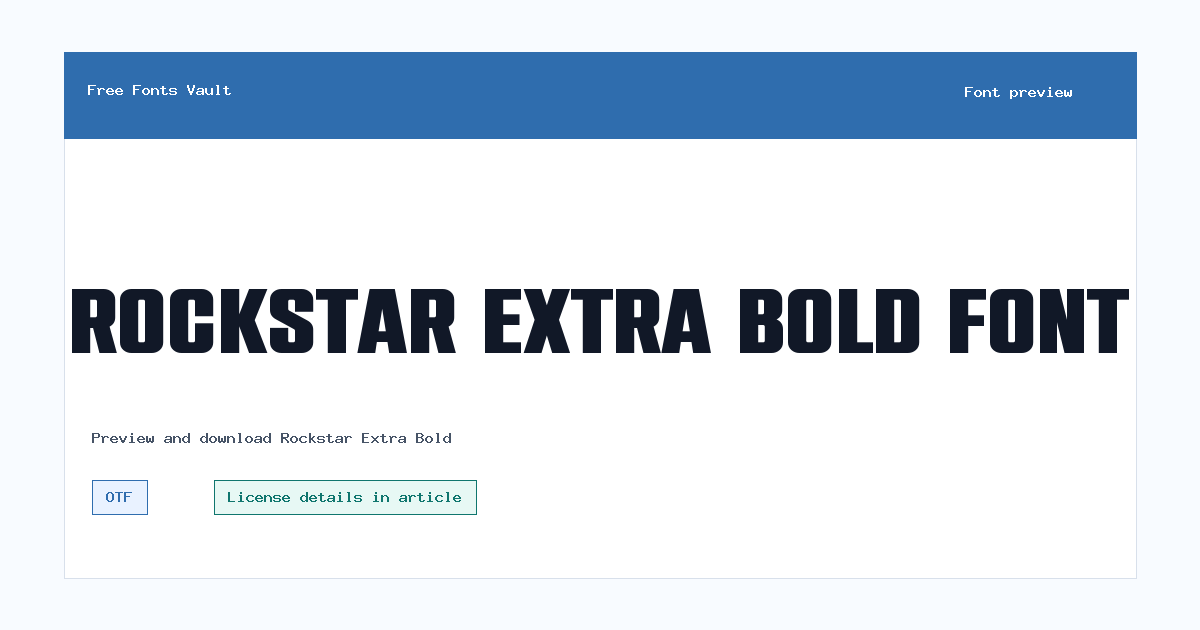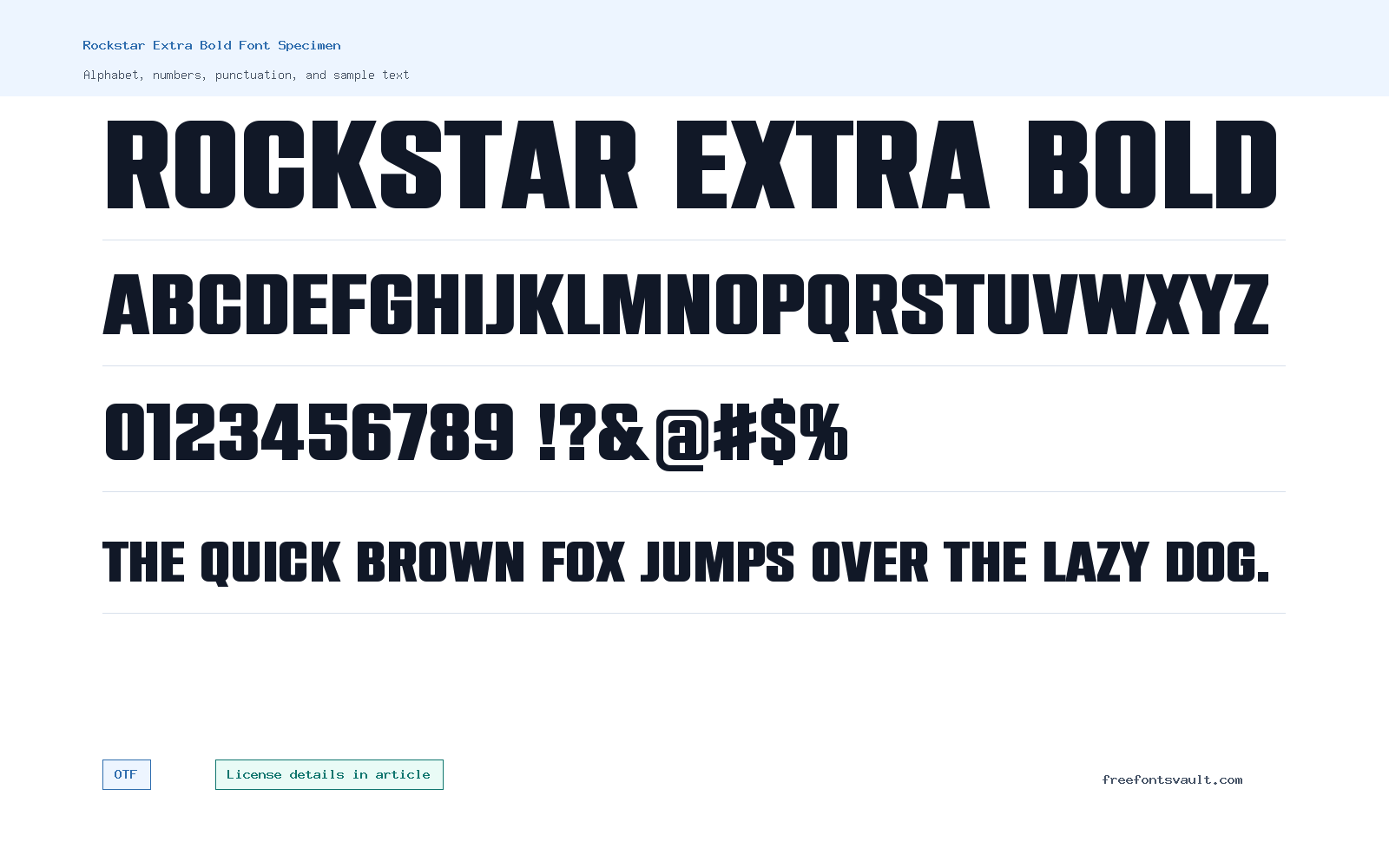
Rockstar Extra Bold
Rockstar Extra Bold is a heavy display font built for short text that needs strong visual weight. It is made for impact, not quiet paragraph reading.
Rockstar Extra Bold is listed as Rockstar-ExtraBold.otf with a 700 weight and normal style. That makes it a bold, one-style display choice for designs where the type should be noticed immediately. It can work well for posters, covers, thumbnails, stickers, music-themed graphics, bold product mockups, and compact headline treatments.
Because the font is heavy, the best results usually come from short words or tight phrases. Long sentences may feel loud and tiring, while small captions can lose their shape. Use the preview to test letter spacing, numbers, punctuation, and the exact words you plan to publish. If the phrase feels crowded, increase the size or give the letters more room.
This is not a complete multi-weight type system. If you need body copy, captions, or secondary information, pair Rockstar Extra Bold with a cleaner companion font. Let the extra bold face handle the main hook, then keep the rest of the layout calm and readable.
• Heavy 700 weight for strong display impact
• Single normal style in the family entry
• Best for short headlines, title graphics, and poster text
• Useful when a design needs bold visual presence quickly
• Pairs best with simpler fonts for supporting copy
• Posters, covers, thumbnails, and bold social graphics
• Music artwork, stickers, labels, and event graphics
• Short branding experiments and title treatments
• Packaging mockups where a heavy display wordmark is useful
• Testing extra-bold typography before final production
Use Rockstar Extra Bold at sizes where the heavy shapes have room to breathe. Avoid squeezing long phrases into narrow spaces. For a cleaner layout, combine it with a neutral sans serif for descriptions, dates, prices, or navigation text.
Is Rockstar Extra Bold good for body text?
No. It is better for short display text, posters, thumbnails, labels, and title graphics than for paragraphs.